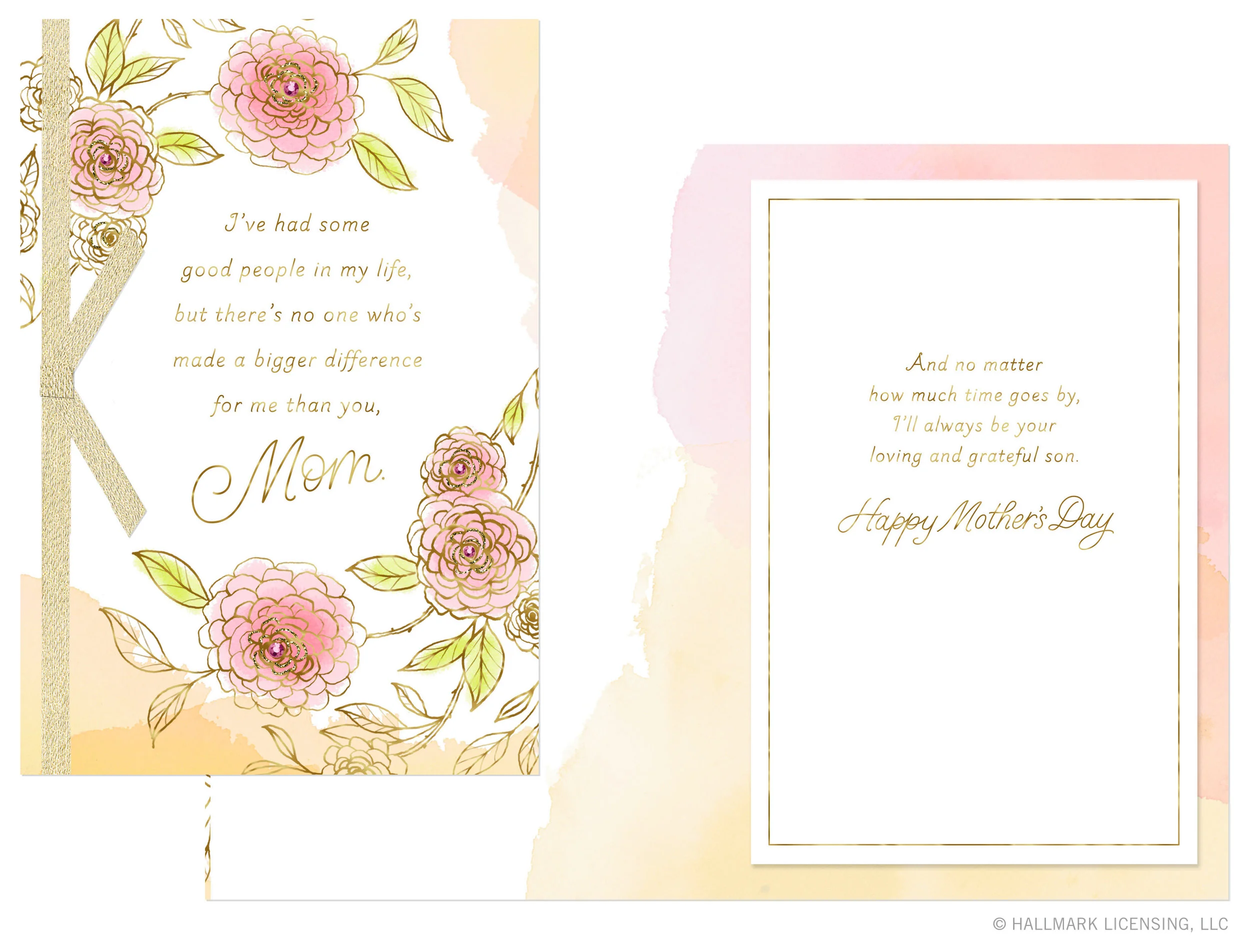
Here is another recent print. Enjoy!
Love Print
Hello, friends! Here is a recent print I designed which I hope to have available on Etsy soon. I loved playing around with layered letterforms and interwoven swashes. Enjoy!
Block Printing for #My5Days
Last Thursday I spent the last of #My5Days at a block printing workshop led by Marisol Ortega. She spent the morning teaching us how she uses block printing in her illustration and lettering work, and then we were let loose to create patterns and other lettering or illustration focused pieces. I loved the freedom of creating one small square and seeing the different ways it could be printed to create patterns. In the afternoon I played around with an illustrated letter "A." I would love to incorporate this technique into future lettering pieces! Thanks, Hallmark, for five days this year to make & explore.
Motherβs Day Cards for Hallmark
I have loved discovering Mother's Day cards I designed for Hallmark out in stores! Here are a few of my favorites, this will be the first year I can buy my mom a card I worked on. Take a look at my updated portfolio for more. Enjoy!
Hallmark CLS Speaker: Gemma O'Brien
Today I received my invitation to Hallmark's Creative Leadership Symposium and I was especially excited to see that Gemma O'Brien (@mrseaves101 on Instagram) will be speaking! I have followed Gemma for a long time and her work is stunning. The whole lineup has not been announced yet, but based off of the few names we did learn I know it will be an amazing day.
The theme for this year's event is "Explore What Else?" and I think each of the speakers will address this in their talk β I can't wait to report back after the actual event! For now, enjoy some of Gemma's beautiful work:
Birthday Cards for Hallmark
Hello, friends! I'm pretty excited that these four birthday cards I designed for Hallmark last summer are now arriving in stores. Any project focused on lettering, sparkle, and pink is hard to top. I also had a few sweet co-workers who gave me some of these cards for my birthday a few weeks ago. I still love seeing my card designs come to life. Enjoy!